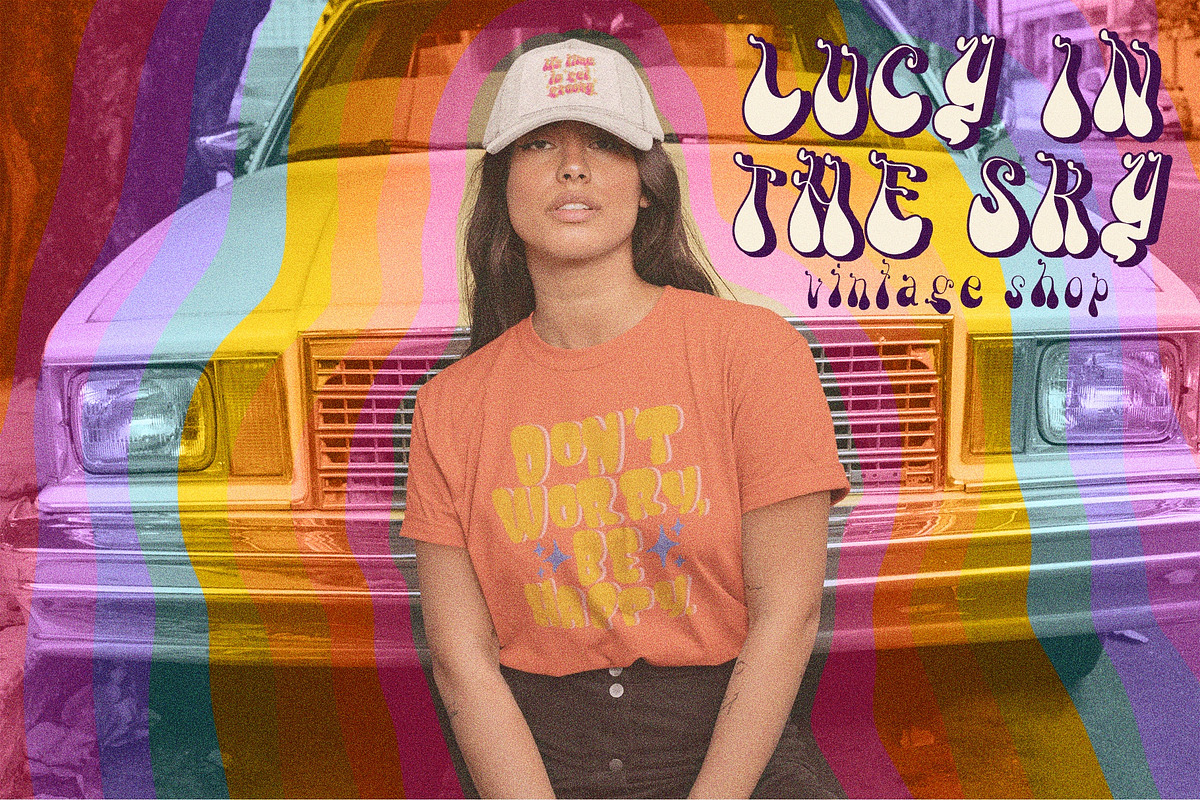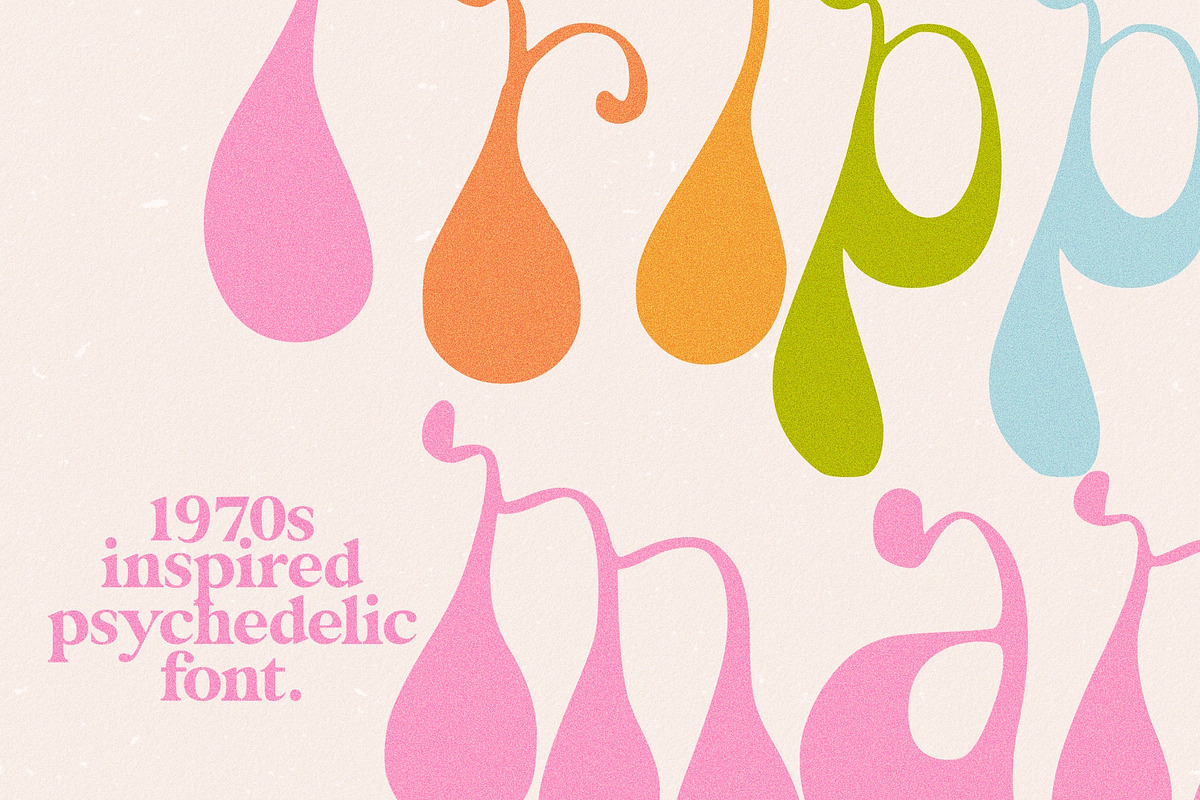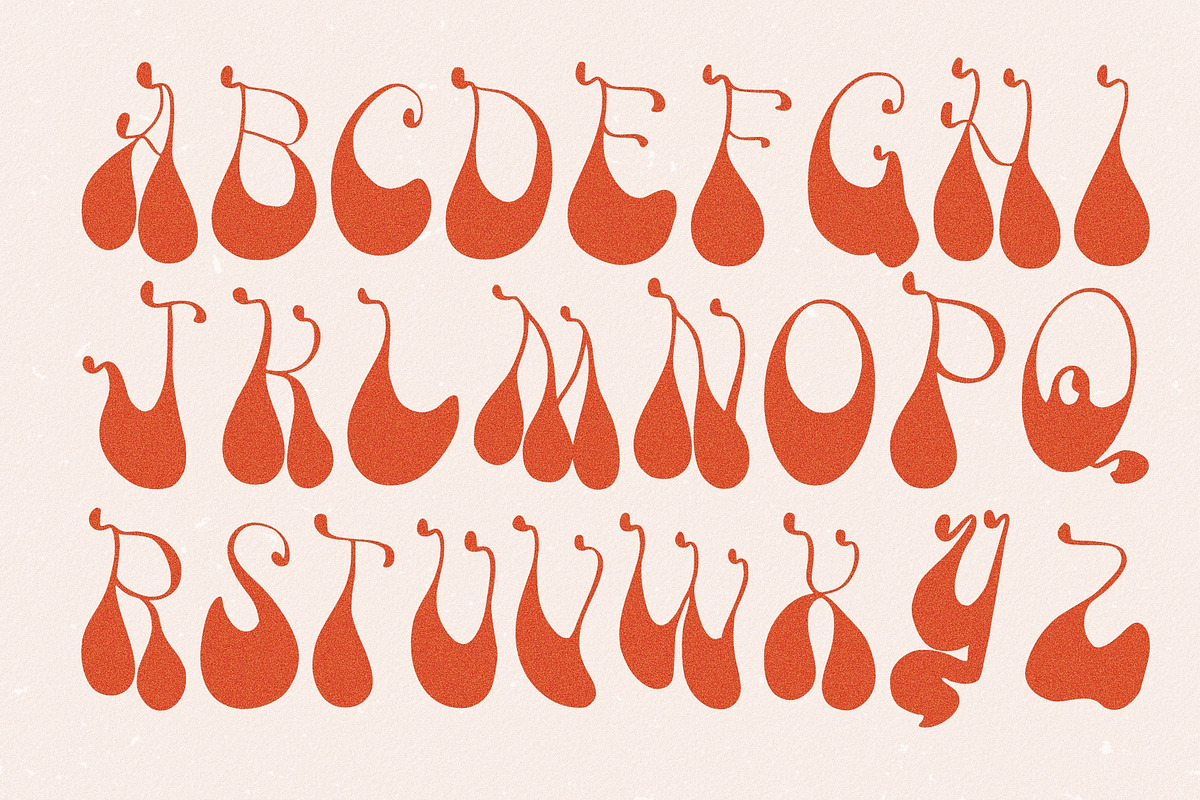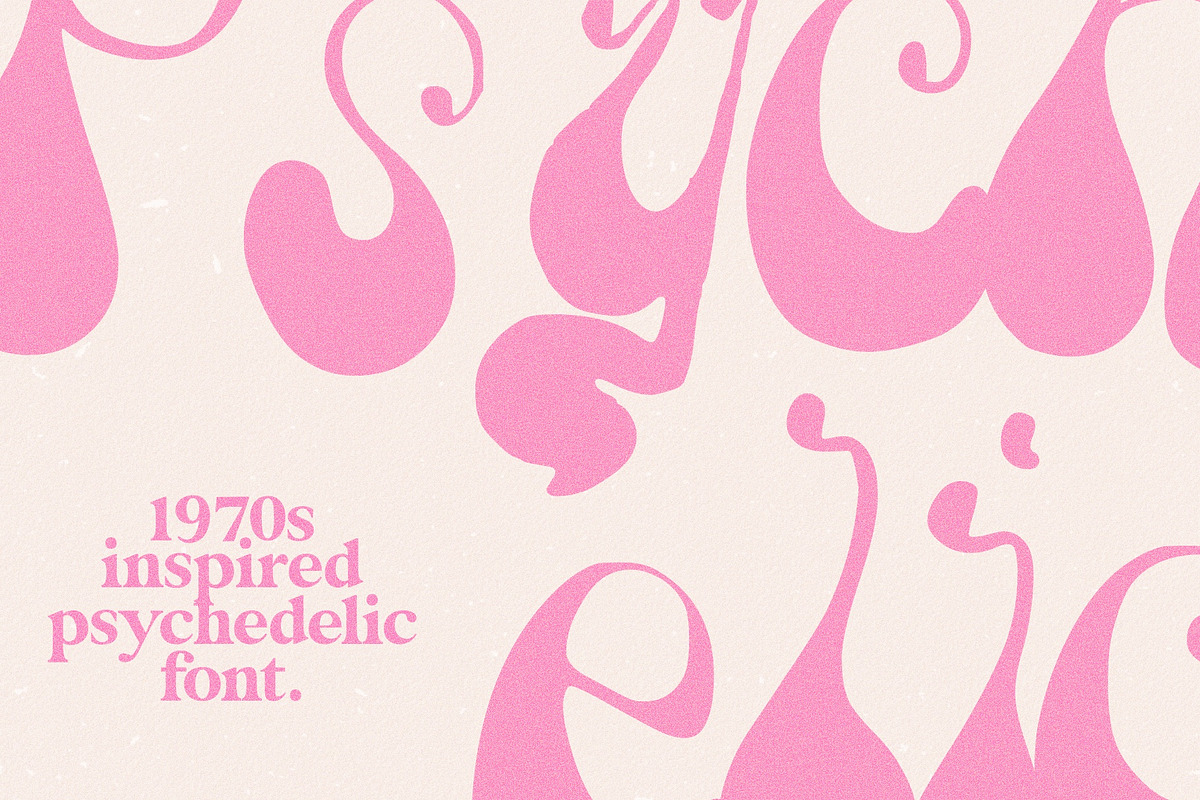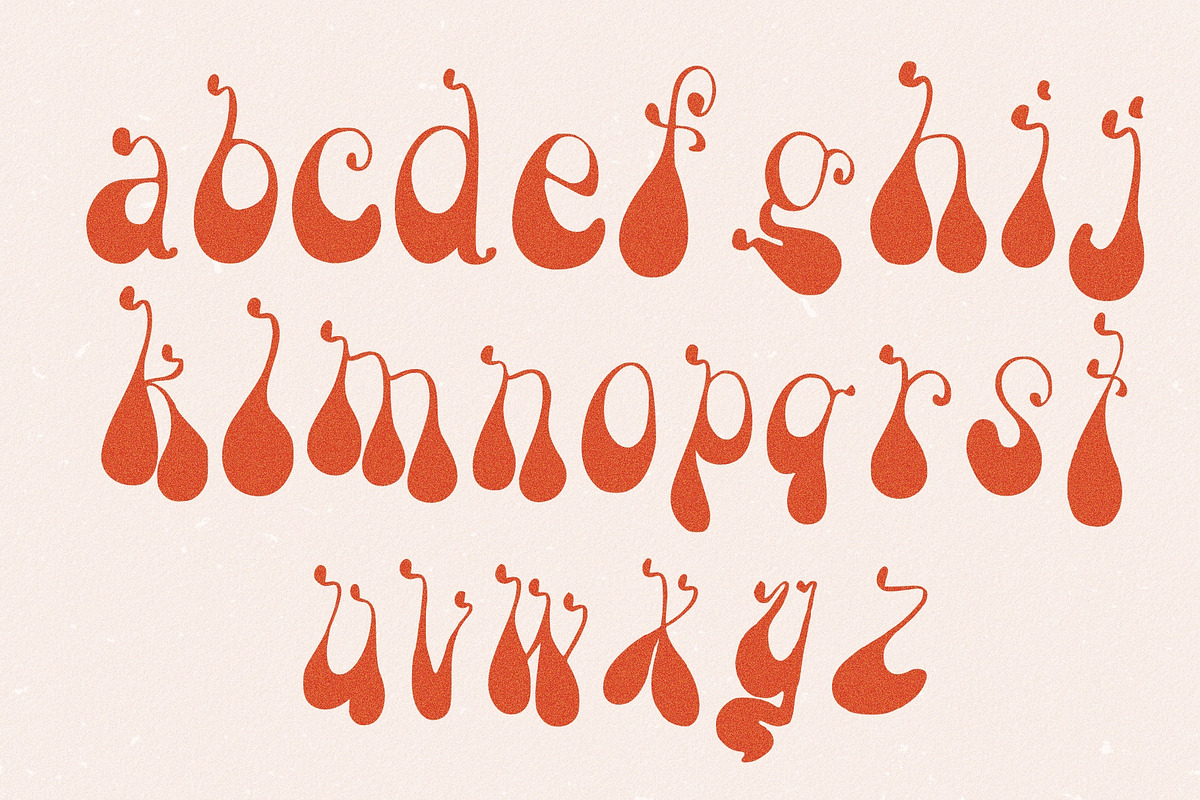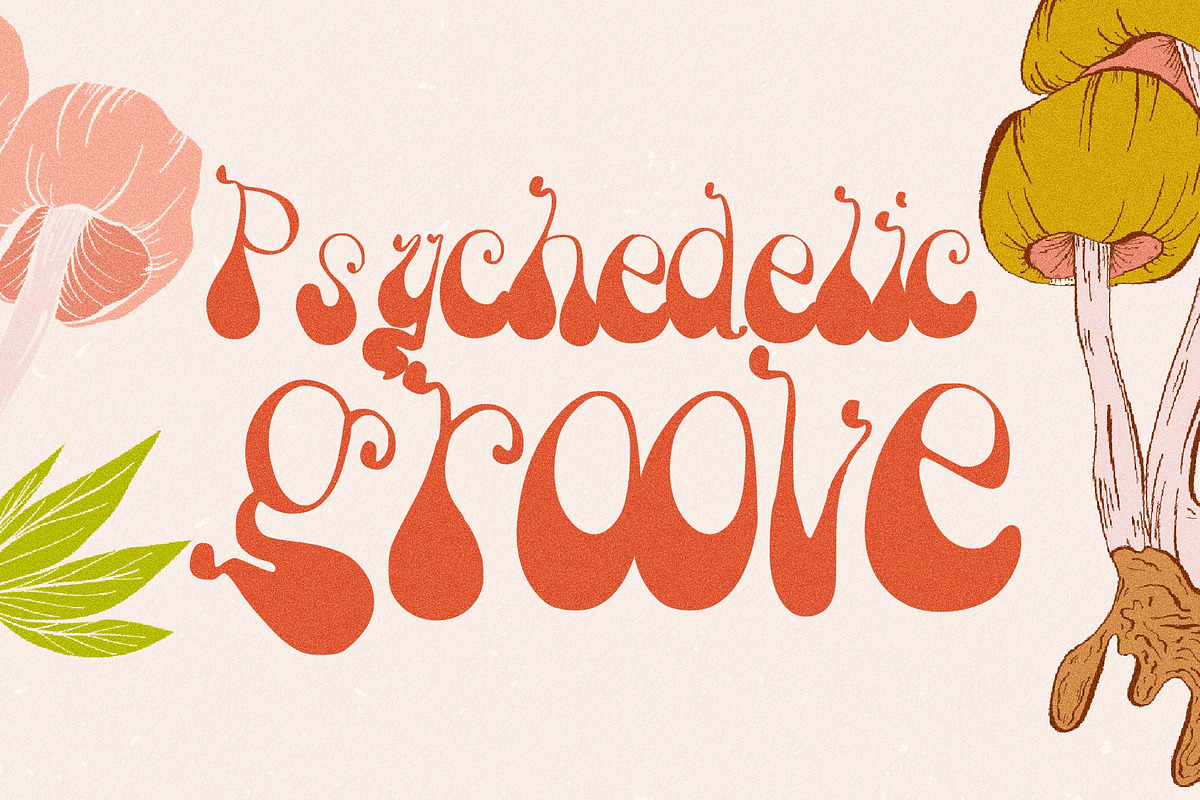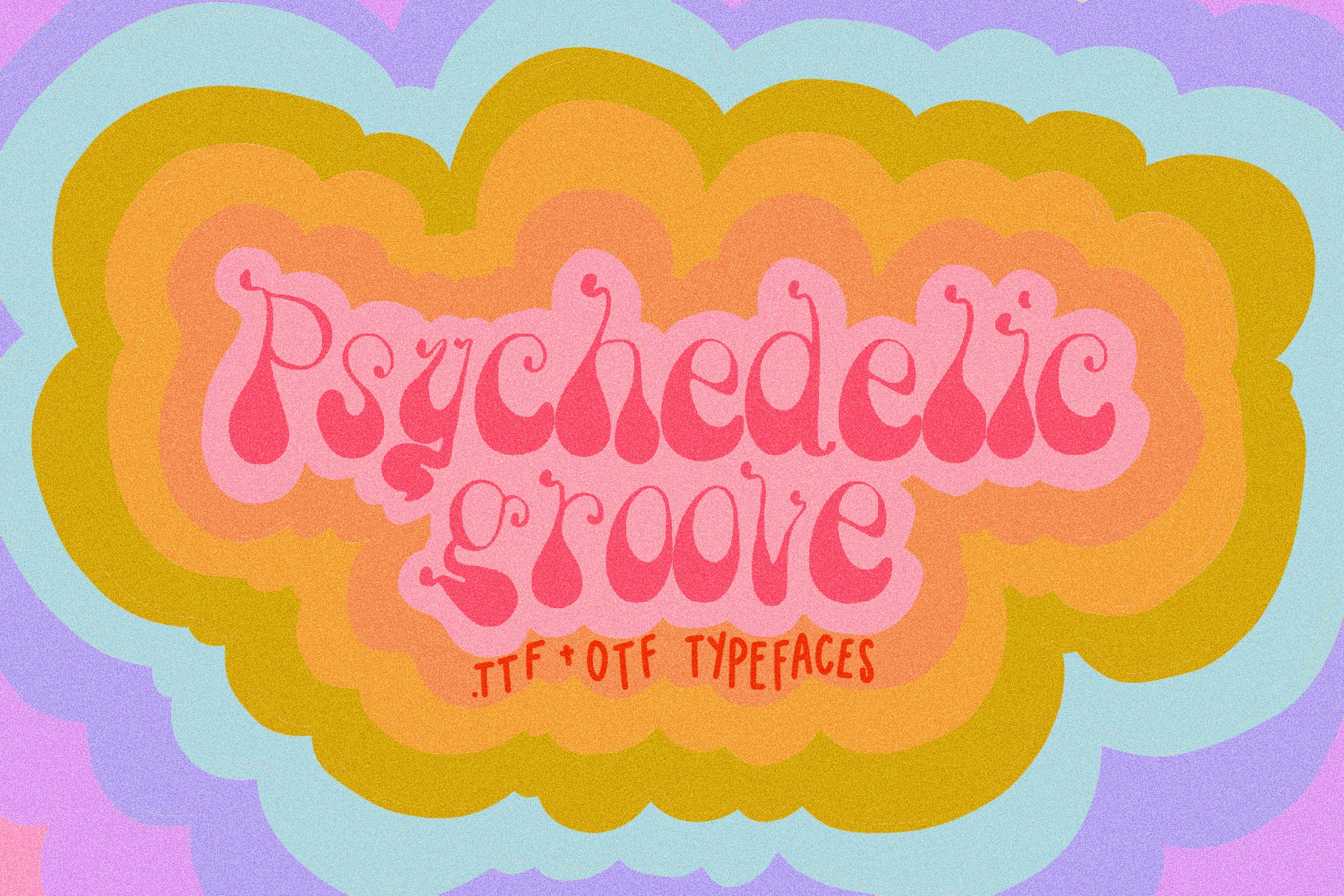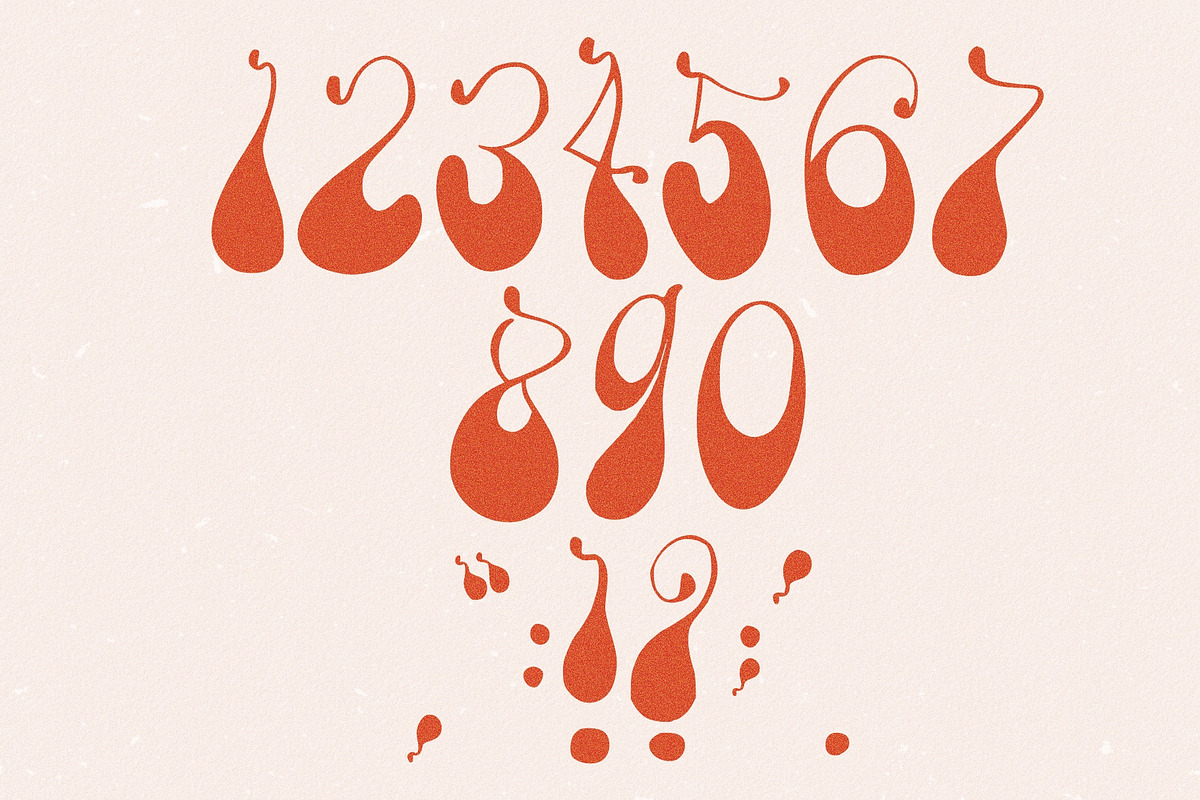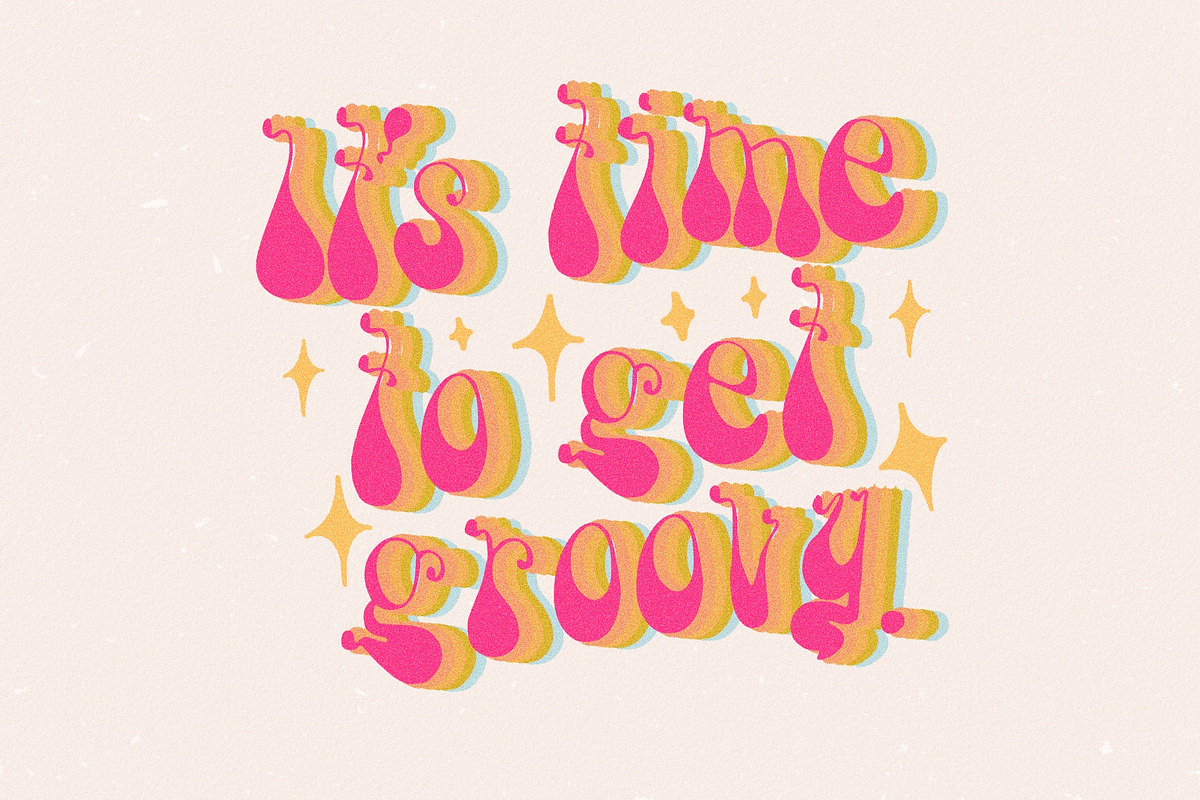
Psychedelic Groove Vintage 70s Font
Welcome to psychedelic groove! This is my second font in my psychedelic font collection, where I am putting a modern spin on vintage psychedelic fonts from the 1970s psychedelitype book! This is inspired by psychedelitype 4518. I love the vintage fonts that have thin tops, and super chunky bottoms and this typeface definitely scratches that itch! It includes the entire uppercase and lowercase English alphabet, as well as all numbers and some punctuation. There are 70 characters all together. Use this font alone, or layer it in design to create trippy effects. Bring the 1970s into your modern design with this wavy typeface. You will receive a TTF and OTF typeface.